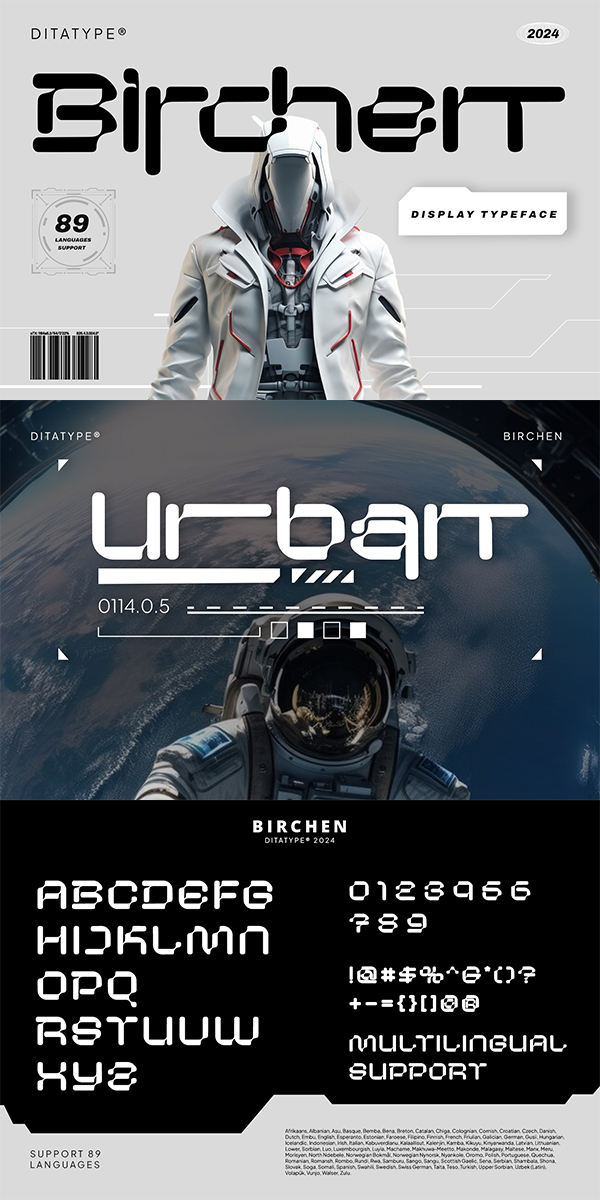
Birchen Font
About Birchen
Birchen embodies the essence of modernity and technological advancement, seamlessly blending futuristic design elements with a sleek tech aesthetic. Designed exclusively in uppercase, each letter maintains consistent proportions, while eschewing clean outlines in favor of a distinctive edginess.
Inspired by the minimalist elegance of contemporary technology, Birchen exudes a sense of sophistication and innovation. Its letters possess a subtle yet unmistakable sense of dynamism, as if each curve and angle is meticulously calibrated to perfection.,The font’s design language speaks to the sleek, streamlined aesthetics of cutting-edge design, with precise geometry and sharp angles that evoke a sense of precision engineering. In addition, enjoy the features here.